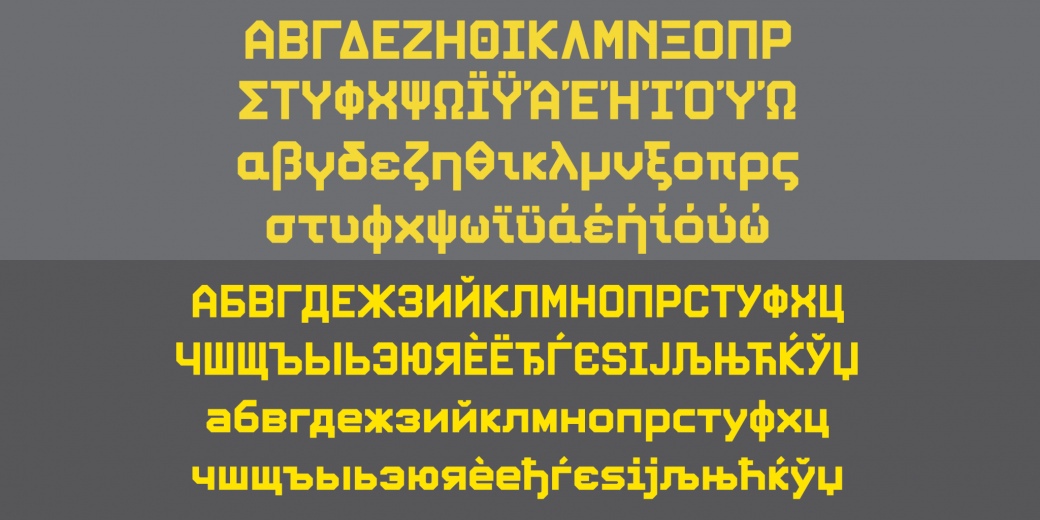
Video Font
Video Font is perfect for gaming logos, streaming overlays, YouTube thumbnails, video game interfaces, esports team branding, digital media presentations, tech company logos, app interfaces, social media graphics, and entertainment industry marketing materials.
Video Font creates excitement because it embodies the dynamic energy of digital entertainment with its modern, tech-inspired character design. The font's sleek letterforms and contemporary styling instantly convey innovation and cutting-edge technology, making any project appear professional and current. Its bold presence and excellent screen readability ensure maximum impact across all digital platforms, while its futuristic aesthetic captures the attention of tech-savvy audiences and gaming communities.
The Video Font family includes multiple weights and styles: Regular, Bold, Light, Italic, Bold Italic, Condensed, Extended, Glitch, and Neon versions. Each variant maintains the font's digital-first design philosophy while offering different visual effects and intensity levels for diverse multimedia applications.